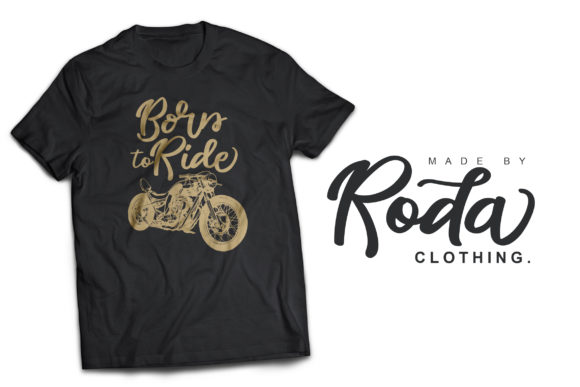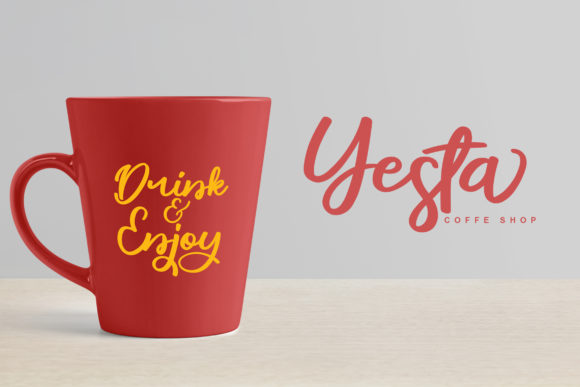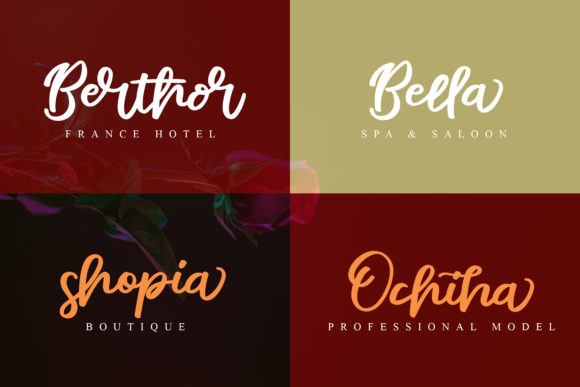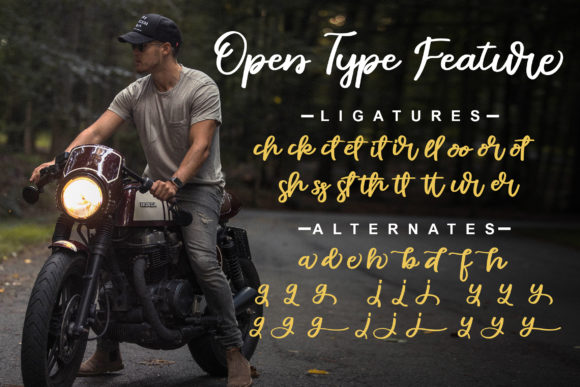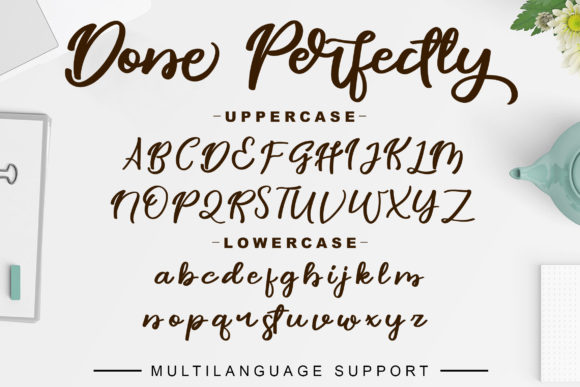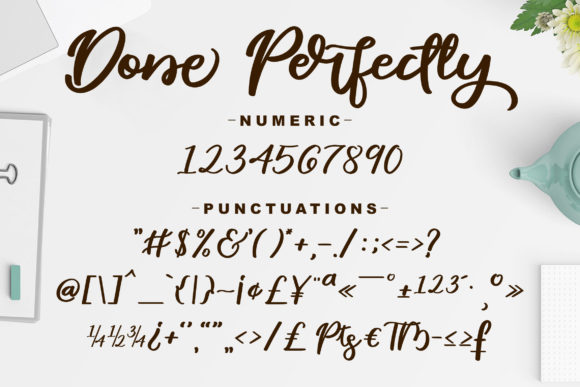
Discover the Elegance of Done Perfectly Font: A Stunning Script with Authentic Swashes
In the world of typography, few fonts manage to capture the essence of elegance and sophistication as effortlessly as the Done Perfectly font. This incredibly stunning script font has taken the design community by storm, and for good reason. With its authentic swashes and fluid strokes, Done Perfectly is the perfect choice for designers and crafters looking to add a touch of luxury to their projects.
The Characteristics of Done Perfectly Font
Done Perfectly is a script font that boasts a range of impressive features. Its most notable characteristic is its use of authentic swashes, which add a level of sophistication and elegance to any design. The font’s strokes are fluid and dynamic, giving it a sense of movement and energy. The letters themselves are intricately designed, with subtle variations in thickness and texture that add depth and visual interest.
What Makes Done Perfectly Font So Versatile?
One of the key benefits of Done Perfectly font is its versatility. This font can be used in a wide range of design applications, from wedding invitations and stationery to branding and advertising. Its elegant, sophisticated feel makes it perfect for luxury brands, while its playful, dynamic strokes ensure it remains approachable and engaging.
Done Perfectly font is a dream come true for designers and crafters. Whether you’re creating bespoke wedding invitations, designing a brand identity, or crafting unique digital products, this font is sure to impress. Its ease of use and flexibility make it perfect for a range of projects, from print and digital to web and social media.
Tips for Using Done Perfectly Font
To get the most out of Done Perfectly font, here are a few tips to keep in mind:
- Use it sparingly: While Done Perfectly font is stunning, it’s best used in moderation. A little goes a long way, and using it too much can overwhelm your design.
- Experiment with swashes: The authentic swashes in Done Perfectly font are one of its standout features. Experiment with different swash combinations to add visual interest to your design.
- Pair it with contrasting fonts: Done Perfectly font pairs beautifully with contrasting fonts, such as bold sans-serifs or elegant serifs. Experiment with different pairings to find the perfect combination for your design.
Done Perfectly font is an exceptional script font that offers a unique combination of elegance, sophistication, and versatility. With its authentic swashes and fluid strokes, it’s the perfect choice for designers and crafters looking to add a touch of luxury to their projects. Whether you’re creating bespoke wedding invitations, designing a brand identity, or crafting unique digital products, Done Perfectly font is sure to impress.